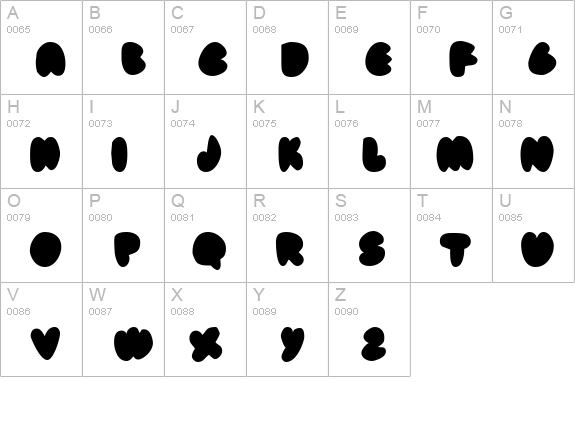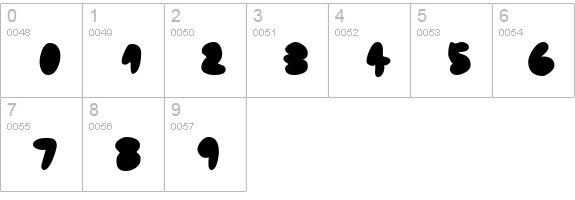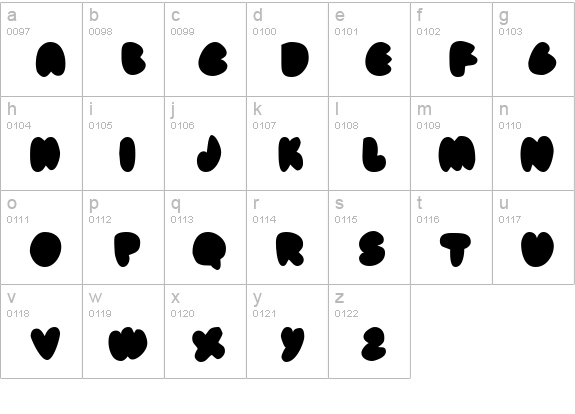
fat ass filled Font Details
Fat Ass Filled Font is a bold and eye-catching typeface that makes a powerful statement. With its thick, rounded letterforms, this font exudes confidence and strength. The generous curves and ample spacing give it a unique and modern look that is sure to capture attention. This font is ideal for headlines, logos, posters, and any design project that requires a strong visual impact. Its versatility allows it to be used in a variety of creative ways, making it a valuable addition to any designer's toolkit. Best of all, Fat Ass Filled Font is available for free download at FontsMarket.com. Simply visit the website and add this striking font to your collection without any cost. Don't miss out on the opportunity to elevate your designs with this impactful typeface. Download it today and let your creativity shine!